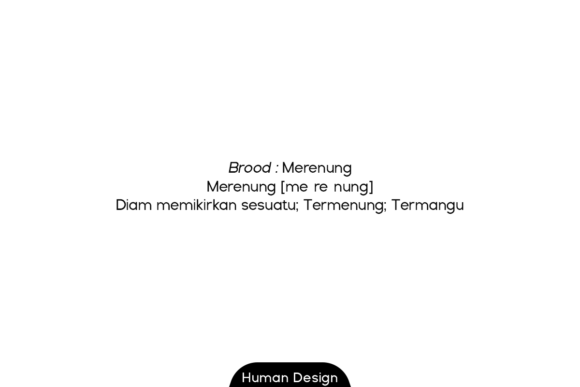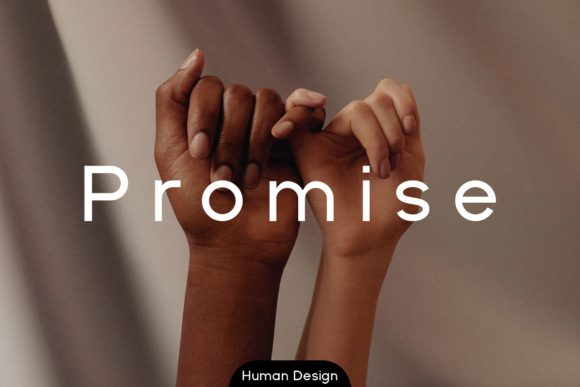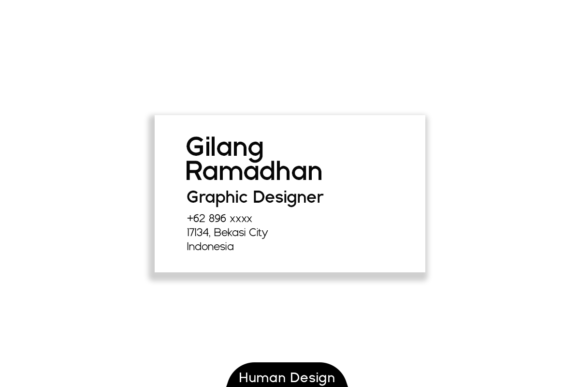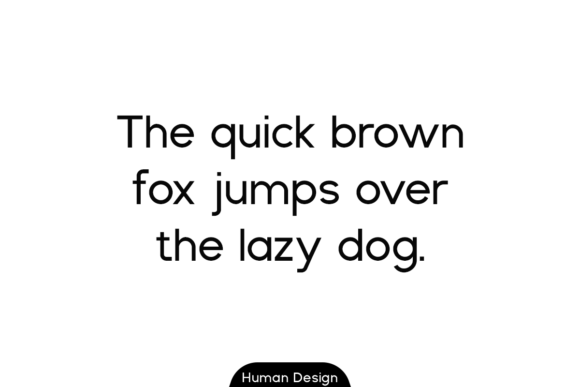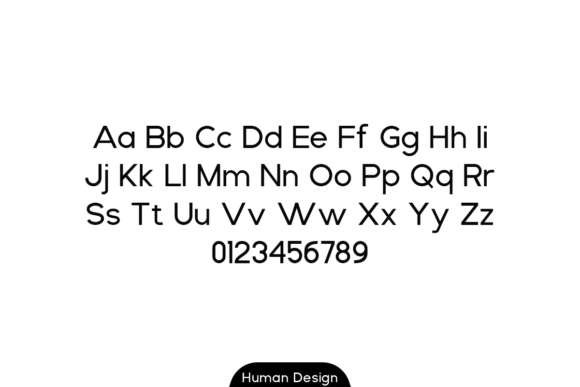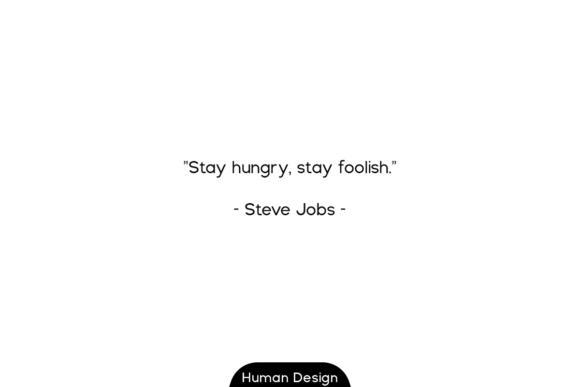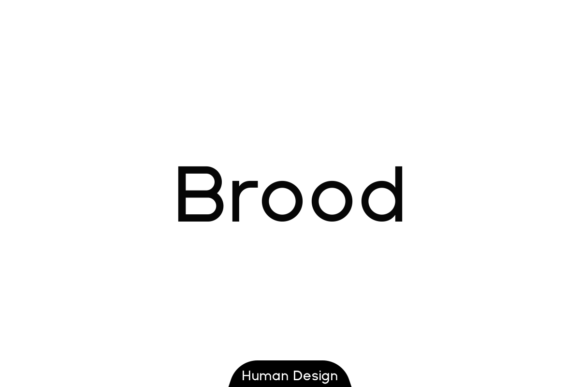
Introducing Brood Font: The Ultimate Sans Serif for Creative Projects
Are you tired of using the same old fonts for your design projects? Look no further! Brood Font is here to revolutionize your creative endeavors with its minimal and neat sans serif style. This versatile font can easily be matched to an incredibly large set of projects, making it the perfect addition to your font collection.
What is Brood Font?
Brood Font is a modern sans serif font designed to provide a clean and elegant look to your designs. Its simplicity and neatness make it an ideal choice for a wide range of projects, from branding and advertising to packaging and digital media. The font’s minimalistic approach ensures that your message takes center stage, while its subtle curves and lines add a touch of sophistication.
Key Features of Brood Font
- Minimal and Neat Design: Brood Font boasts a clean and simple design that ensures your message is conveyed clearly and effectively.
- Versatility: This font can be used for a wide range of projects, including logos, headings, body text, and more.
- Elegant and Sophisticated: Brood Font’s subtle curves and lines add a touch of elegance and sophistication to your designs.
- Easy to Read: The font’s clear and simple design makes it easy to read, even at small sizes.
Why Choose Brood Font?
With so many fonts available, why choose Brood Font? Here are just a few reasons:
- Unique and Modern: Brood Font offers a fresh and modern take on the sans serif font style, setting it apart from more traditional fonts.
- Highly Versatile: This font can be used for a wide range of projects, from digital media to print materials.
- Easy to Pair: Brood Font can be easily paired with other fonts to create a unique and cohesive look.
Using Brood Font in Your Designs
So, how can you use Brood Font in your designs? Here are a few ideas to get you started:
- Branding and Logos: Use Brood Font to create a modern and sleek logo that sets your brand apart.
- Headings and Titles: Use Brood Font to add a touch of elegance and sophistication to your headings and titles.
- Body Text: Use Brood Font as a body text font to add a touch of modernity and simplicity to your designs.
Tips for Pairing Brood Font with Other Fonts
Pairing Brood Font with other fonts can add depth and interest to your designs. Here are a few tips to keep in mind:
- Contrast with Serif Fonts: Pair Brood Font with a serif font to create a striking contrast between modern and traditional.
- Match with Script Fonts: Pair Brood Font with a script font to add a touch of elegance and sophistication.
- Use with Bold Fonts: Pair Brood Font with a bold font to create a clear visual hierarchy.
| Font Name | Brood Font |
| Author | Human Design |
In conclusion, Brood Font is a versatile and modern sans serif font that can add a touch of elegance and sophistication to your designs. Its minimal and neat design makes it an ideal choice for a wide range of projects, from branding and advertising to packaging and digital media. With its ease of use and high versatility, Brood Font is sure to become a staple in your font collection.